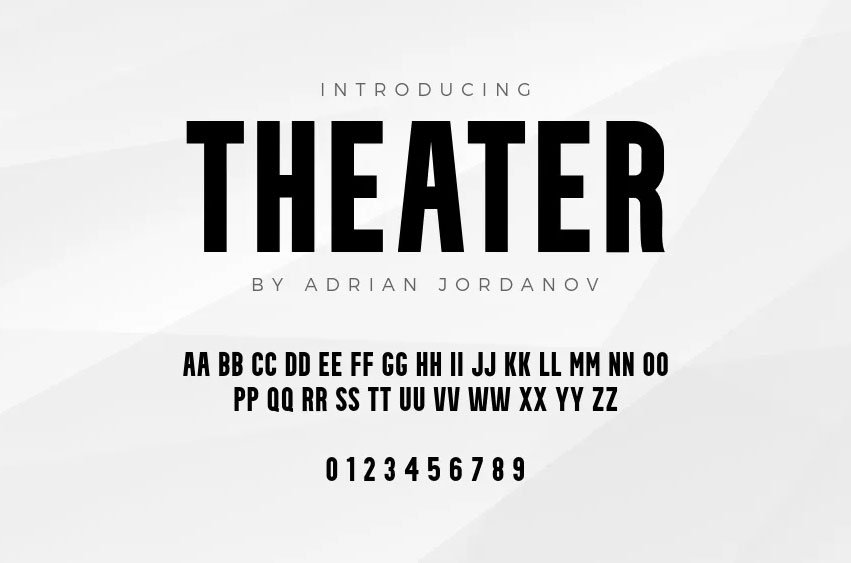
Theater Font
Theater Font created by font designer Adrian Jordanov, is a sleek and elegant Sans Serif font that is perfect for use in eye-catching posters and social media graphics. With its condensed design and bold style, it is sure to grab attention and make an impact.
This font is specifically designed for display purposes, ensuring easy readability and maximum impact. If you want to make a statement with your typography, the Theater Font is an excellent choice.